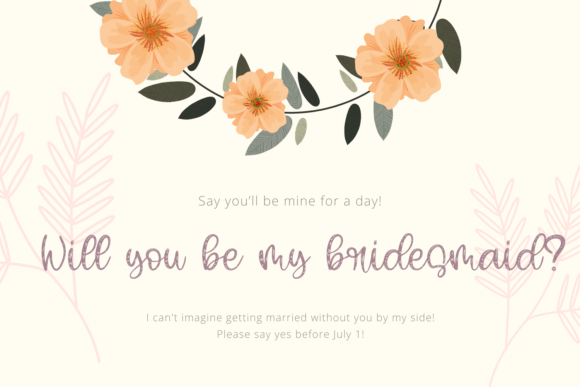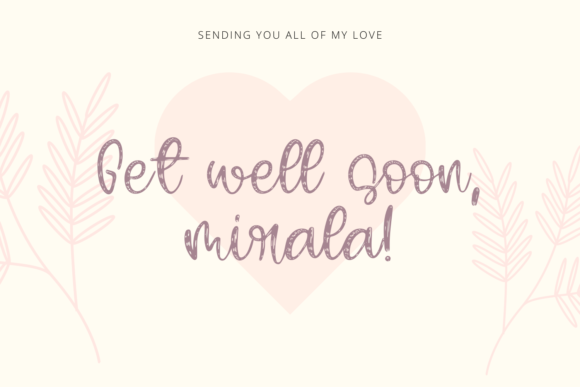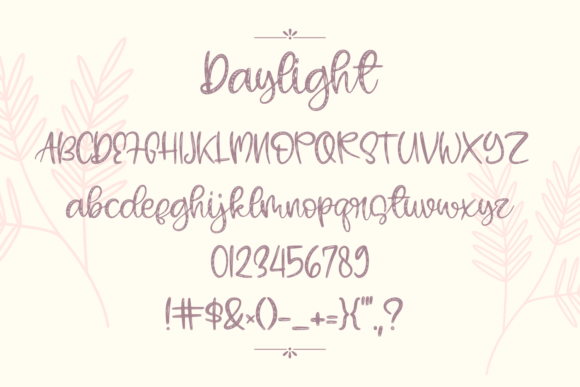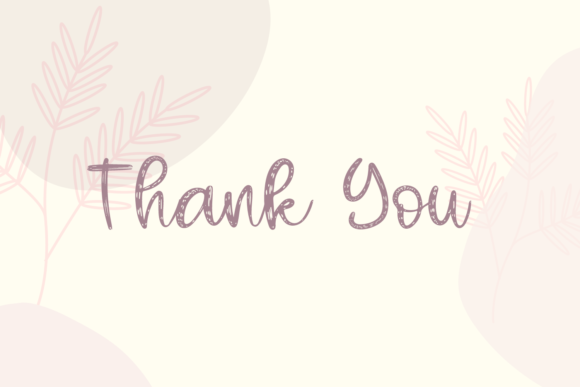
Introducing Daylight Font: Elevate Your Designs with Luxury and Versatility
In the world of typography, fonts play a crucial role in making or breaking a design. A perfect font can add a touch of elegance, sophistication, and luxury to any project. If you’re a designer or crafter looking for a font that can elevate your designs, look no further than Daylight Font. In this article, we’ll dive into the features and benefits of Daylight Font, and explore how it can add a spark of luxury to your design projects.
What is Daylight Font?
Daylight Font is a stunning handwritten brush font that boasts a light weight, making it perfect for a wide range of design applications. Its unique and elegant style is sure to capture the attention of your audience and leave a lasting impression. With its versatile design, Daylight Font can be used to create a variety of designs, from elegant logos and branding materials to beautiful wedding invitations and DIY crafts.
Key Features of Daylight Font
• Handwritten Brush Font: Daylight Font features a beautiful handwritten brush style that adds a touch of warmth and personality to any design.
• Light Weight: The font’s light weight makes it perfect for use in a variety of design applications, from digital designs to print materials.
• Luxury and Versatile: Daylight Font’s elegant design makes it perfect for creating luxurious and sophisticated designs that are sure to impress.
Benefits of Using Daylight Font
So, why should you choose Daylight Font for your design projects? Here are just a few benefits of using this amazing font:
• Adds a Touch of Luxury: Daylight Font’s elegant design adds a touch of luxury to any design project, making it perfect for high-end branding and marketing materials.
• Incredibly Versatile: The font’s versatile design makes it perfect for use in a wide range of design applications, from digital designs to print materials.
• Easy to Read: Despite its elegant design, Daylight Font is easy to read, making it perfect for use in body text and other applications where readability is key.
How to Use Daylight Font in Your Designs
Using Daylight Font in your designs is easy. Here are a few tips to get you started:
• Pair it with Other Fonts: Daylight Font pairs perfectly with other fonts, making it easy to create stunning font combinations that add depth and interest to your designs.
• Use it for Headings and Titles: The font’s elegant design makes it perfect for use in headings and titles, where it can add a touch of luxury and sophistication.
• Experiment with Colors and Textures: Daylight Font looks amazing in a variety of colors and textures, so don’t be afraid to experiment and find the perfect combination for your design.
Who Can Benefit from Using Daylight Font?
Daylight Font is perfect for a wide range of designers and crafters, including:
• Graphic Designers: Daylight Font is perfect for graphic designers looking to add a touch of luxury and sophistication to their designs.
• Wedding and Event Planners: The font’s elegant design makes it perfect for use in wedding invitations, event branding, and other marketing materials.
• Crafters and DIY Enthusiasts: Daylight Font is also perfect for crafters and DIY enthusiasts looking to add a touch of elegance and sophistication to their projects.
In conclusion, Daylight Font is a stunning handwritten brush font that is sure to add a touch of luxury and sophistication to any design project. With its light weight, elegant design, and incredible versatility, it’s perfect for use in a wide range of design applications. Whether you’re a graphic designer, wedding planner, or crafter, Daylight Font is a must-have font that is sure to elevate your designs and leave a lasting impression on your audience.